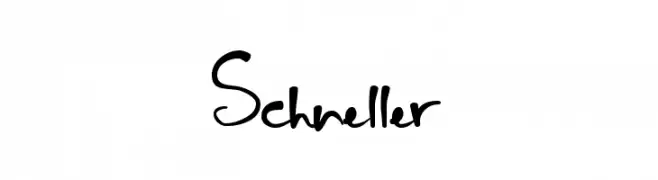
( Fonts by Vinay Suresh )
A playful, whimsical handwritten font with flowing, cursive-like strokes.
( Fonts by Origin Type )
A playful, bold handwritten font with rounded letterforms and a casual style.
( Fonts by Storytype Studio )
Casual, artistic handwritten font.
( Fonts by junkohanhero )
A playful, handwritten font with a casual and organic feel.
( Fonts by Four Lines )
Bold cursive script with a playful style.
( Fonts by Cassy Root )
Casual handwritten script font.
A playful, hand-drawn font with tall, narrow letters and a whimsical style.
A playful, thin, and whimsical font with a hand-drawn feel.
A textured, brush-like script font with a dynamic and expressive style.
( Fonts by EvasUniqueFonts )
A dynamic, handwritten script font with fluid, connected letters and varying stroke thickness.
( Fonts by Coco Barth )
A playful, handwritten font with irregular strokes and a casual style.
( Fonts by Wahyu Studio )
A playful, handwritten script font with smooth, flowing characters.
( Fonts by Type Factory )
Playful, rounded handwritten font.
( Fonts by Docallisme HAS )
A playful, hand-drawn font with tall, narrow letters and a whimsical style.
( Fonts by Andre Gouveia )
A playful, casual handwritten font with smooth, rounded strokes.
( Fonts by Misti's Fonts )
A playful, handwritten font with smooth, rounded edges and a casual feel.
( Fonts by Phitradesign )
A playful handwritten font with an organic, casual style.
( Fonts by Scratchones )
A playful, handwritten font with rounded edges and consistent thickness.
( Fonts by Seckin Hatipoglu )
A bold, cursive script with a hand-drawn, textured appearance.
A cursive, italic font with elegant, flowing lines and a handwritten appearance.
( Fonts by scratchones )
A bold, playful handwritten font with expressive strokes and a lively aesthetic.
( Fonts by Letterena Studios )
An elegant script font with fluid, cursive strokes and interconnected letters.
( Fonts by Namara Creative )
Handwritten cursive script font.
( Fonts by D K )
A playful, handwritten font with fluid strokes and dynamic character.
( Fonts by hati )
A playful, hand-drawn font with a bold, rounded style and informal charm.